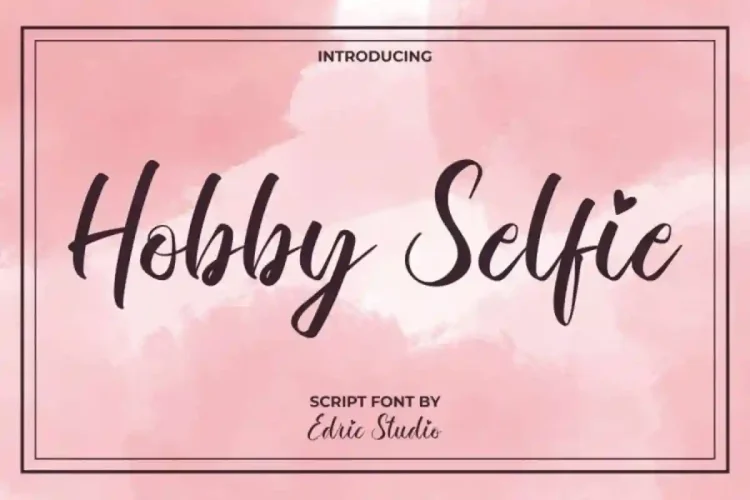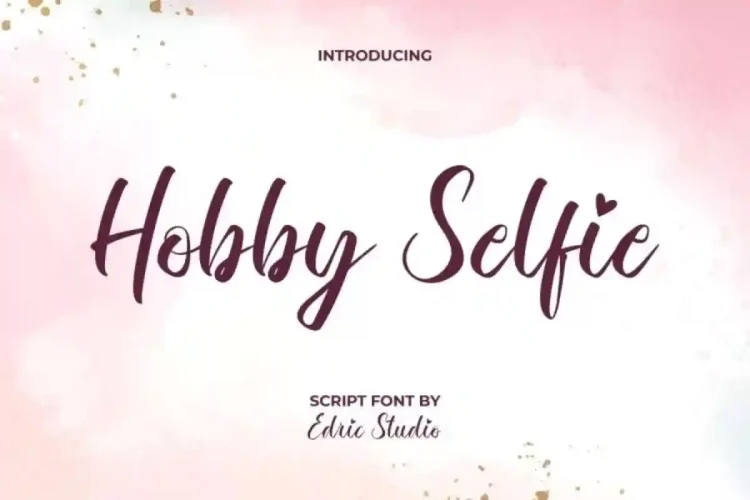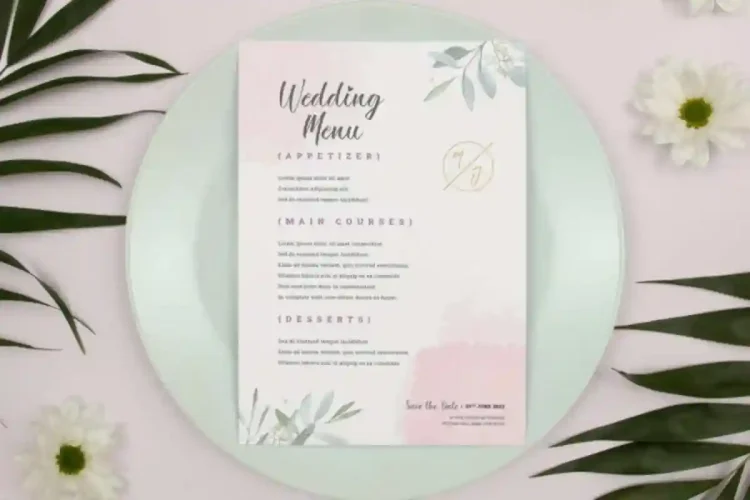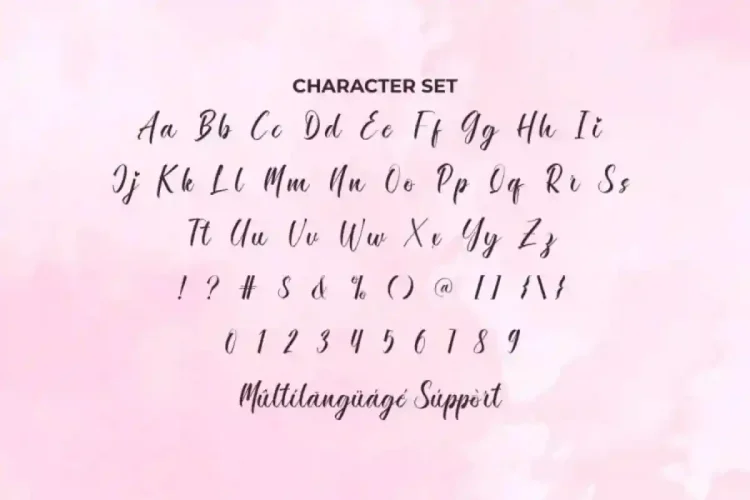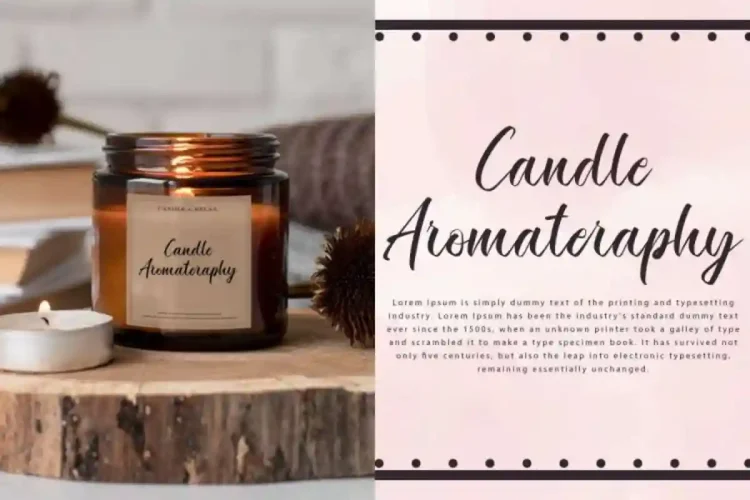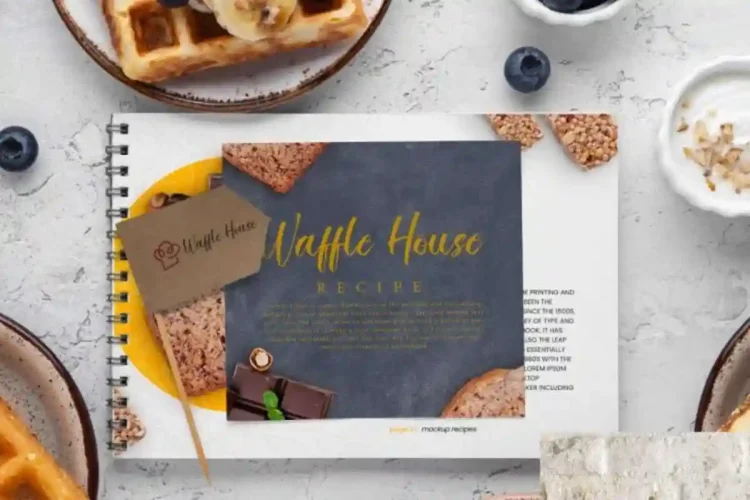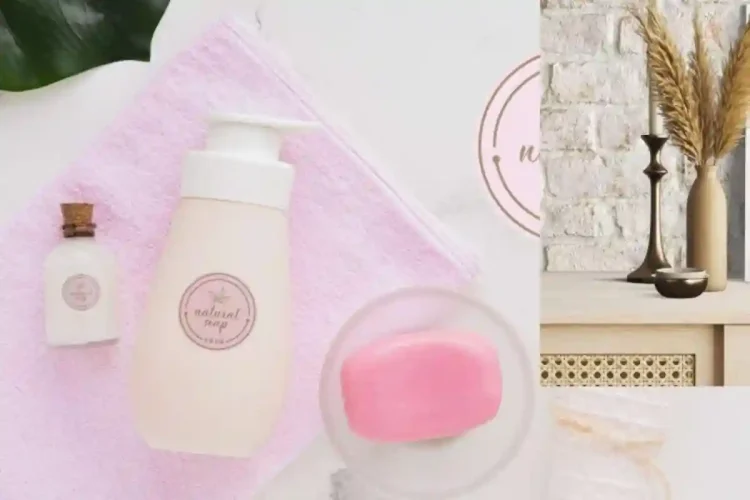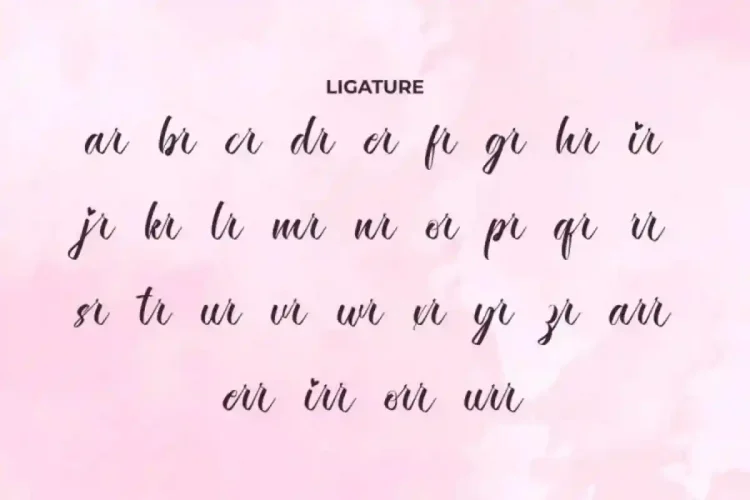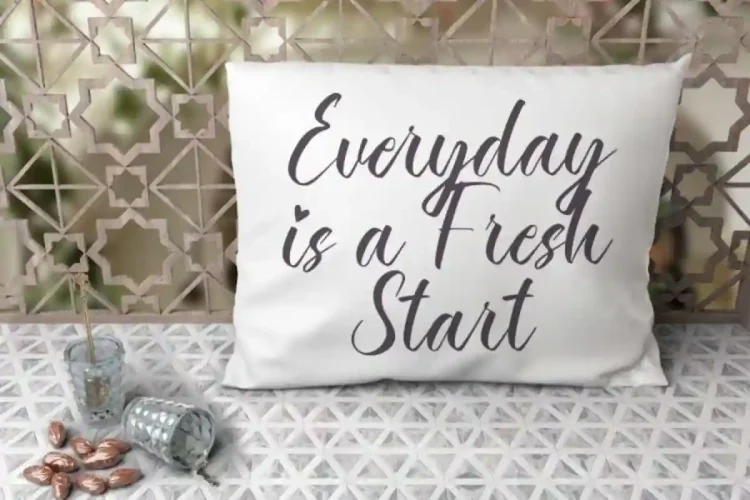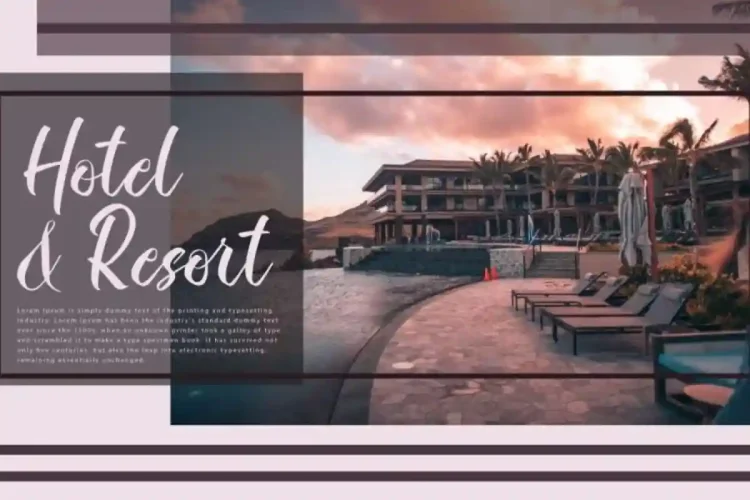
Hobby Selfie Script Font is a lovely brush calligraphy font is your perfect solution. Designed with precision to capture the natural flow of real handwriting, this font adds a personal and stylish touch to any creative project.
Hobby Selfie Script Font comes with a full set of Uppercase and Lowercase Basic Characters, Number, a large range of Punctuation and Symbol. It has a stunning characters set, perfectly managed with well spaced and kerning. Hobby Selfie Calligraphy Script Font will be great for any projects (with extended license) including : brand logo, brochure, business card, label, menu, packaging design, quote, screen print, sticker, title, website, etc.